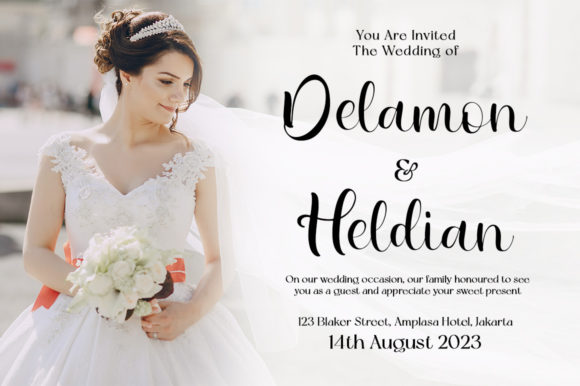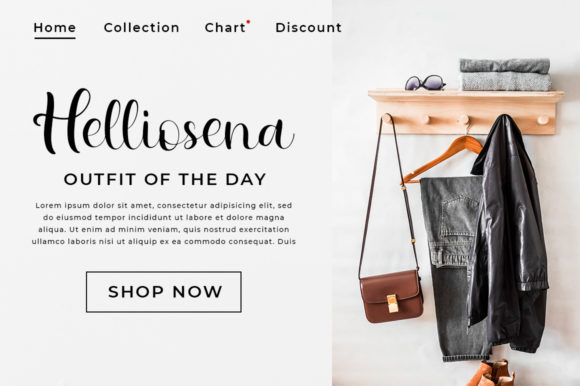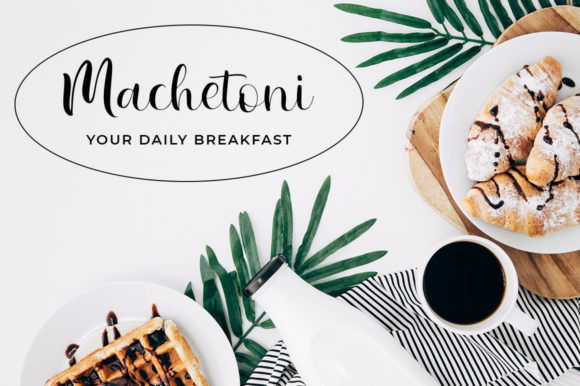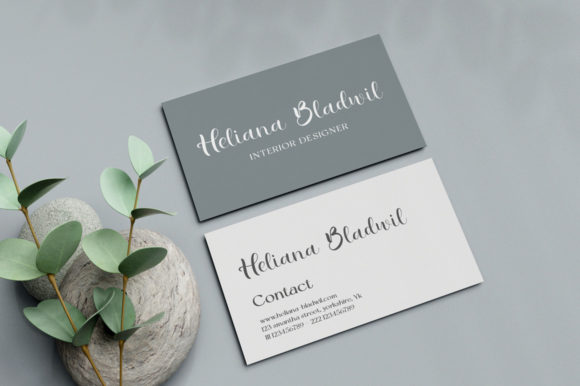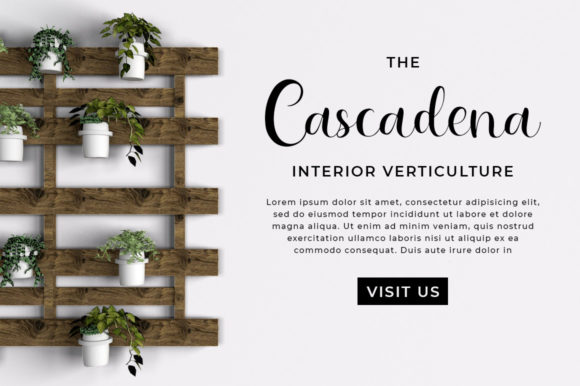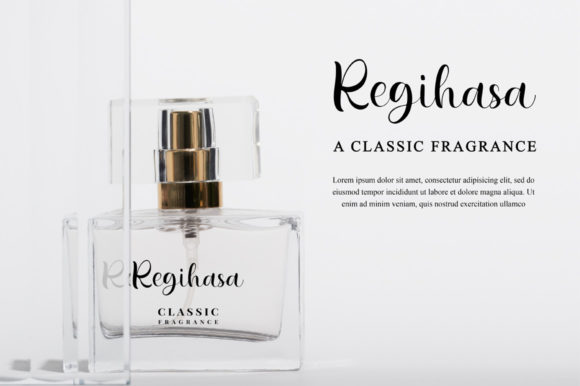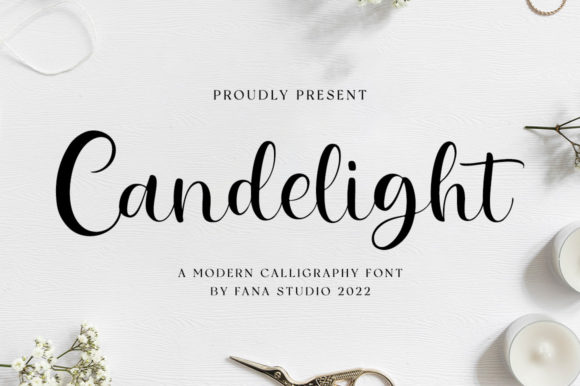
Candelight Font: A Stylish and Dainty Script Font for Your Creative Projects
Are you looking for a font that adds a touch of elegance and sophistication to your designs? Look no further than Candelight, a beautiful script font that is perfect for a variety of creative projects. In this article, we’ll take a closer look at Candelight and explore its features, uses, and benefits.
What is Candelight Font?
Candelight is a stylish and dainty script font that is designed to add a touch of luxury and refinement to your designs. Its elegant and flowing lines make it perfect for projects that require a high level of sophistication and style. Whether you’re working on a logo, branding project, label, or any other type of design, Candelight is a great choice.
Features of Candelight Font
Candelight has a number of features that make it a great choice for designers and crafters. Some of its key features include:
- Elegant and flowing lines: Candelight’s lines are smooth and flowing, making it perfect for creating beautiful and sophisticated designs.
- Stylish and dainty: Candelight is a stylish and dainty font that adds a touch of luxury and refinement to your designs.
- Versatile: Candelight is suitable for a wide range of projects, including logos, branding projects, labels, photography, watermarks, and more.
- Easy to read: Despite its elegant and flowing lines, Candelight is easy to read, making it perfect for body text and other applications where readability is important.
Uses of Candelight Font
Candelight is a versatile font that can be used for a wide range of projects, including:
- Logos: Candelight is perfect for creating elegant and sophisticated logos that make a lasting impression.
- Branding projects: Candelight can be used to create beautiful and cohesive branding projects that reflect your company’s values and personality.
- Labels: Candelight is a great choice for labels, adding a touch of elegance and sophistication to your products.
- Photography: Candelight can be used to add a touch of luxury and refinement to your photography, making it perfect for watermarks and other applications.
- Special events: Candelight is perfect for special events, such as weddings and anniversaries, where a touch of elegance and sophistication is required.
Benefits of Using Candelight Font
There are many benefits to using Candelight font, including:
- Increased elegance and sophistication: Candelight adds a touch of luxury and refinement to your designs, making them more elegant and sophisticated.
- Improved readability: Despite its elegant and flowing lines, Candelight is easy to read, making it perfect for body text and other applications where readability is important.
- Versatility: Candelight is suitable for a wide range of projects, making it a great addition to any designer’s toolkit.
- Unique and creative: Candelight is a unique and creative font that can help you stand out from the crowd and make your designs more memorable.
Tips for Using Candelight Font
Here are a few tips for using Candelight font:
- Use it sparingly: Candelight is a elegant and sophisticated font, so use it sparingly to avoid overwhelming your designs.
- Pair it with other fonts: Candelight can be paired with other fonts to create a unique and creative look.
- Experiment with different sizes and colors: Candelight can be used in a variety of sizes and colors, so experiment to find the look that works best for your designs.
| Author | fanastudio |
Candelight is a beautiful and elegant script font that is perfect for a wide range of creative projects. Its stylish and dainty lines make it a great choice for designers and crafters who want to add a touch of luxury and refinement to their designs. With its versatility, readability, and unique and creative style, Candelight is a great addition to any designer’s toolkit.
Whether you’re working on a logo, branding project, label, or any other type of design, Candelight is a great choice. So why not give it a try and see how it can elevate your designs to the next level?